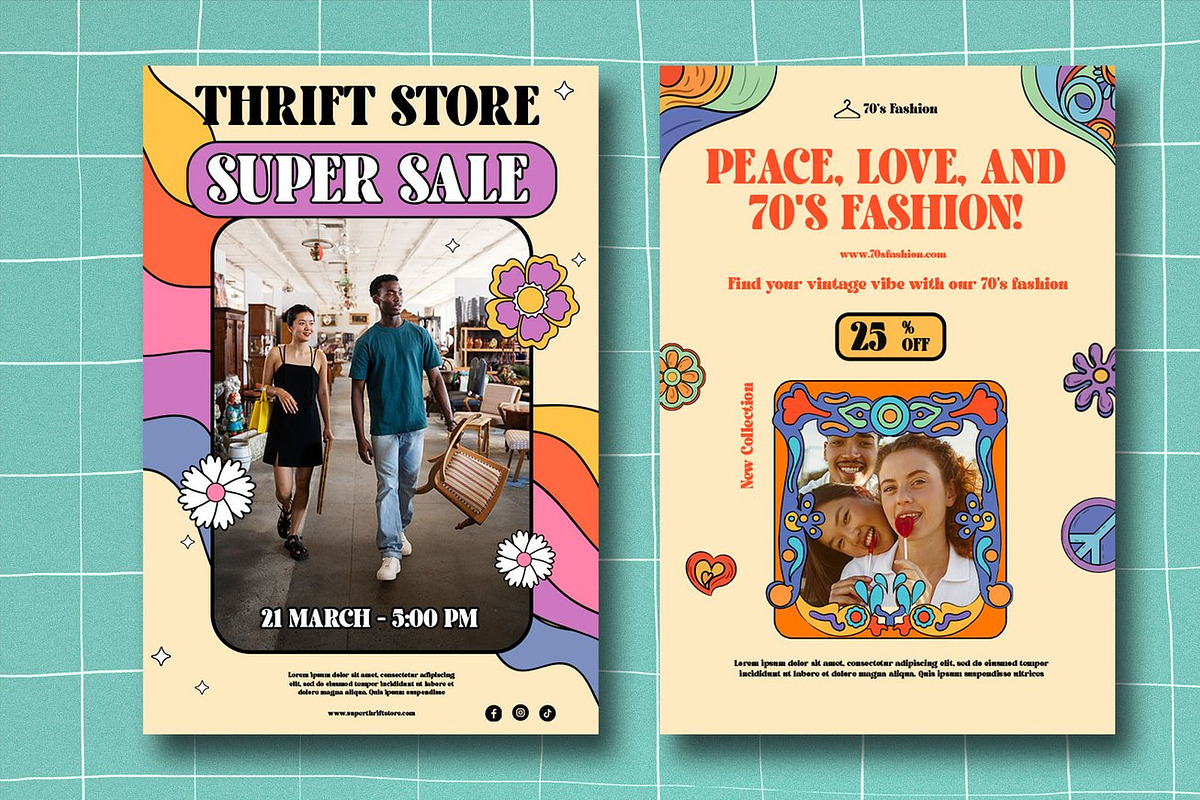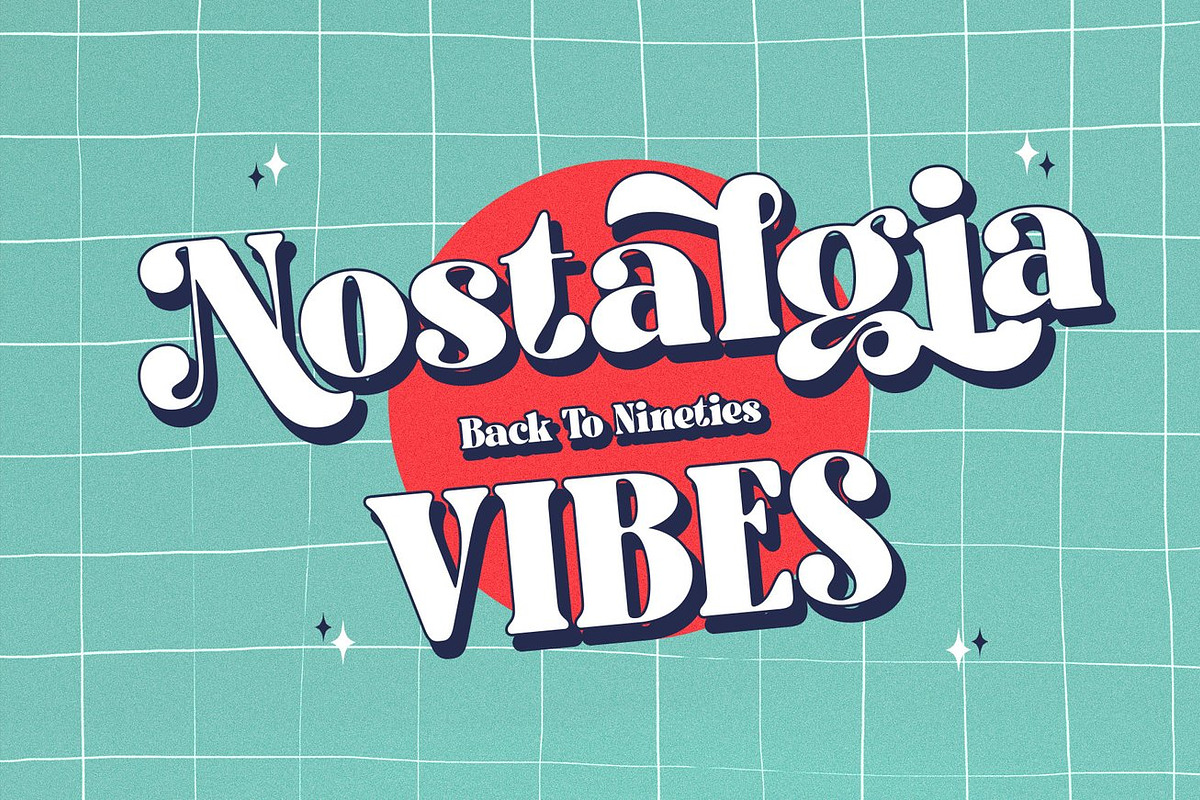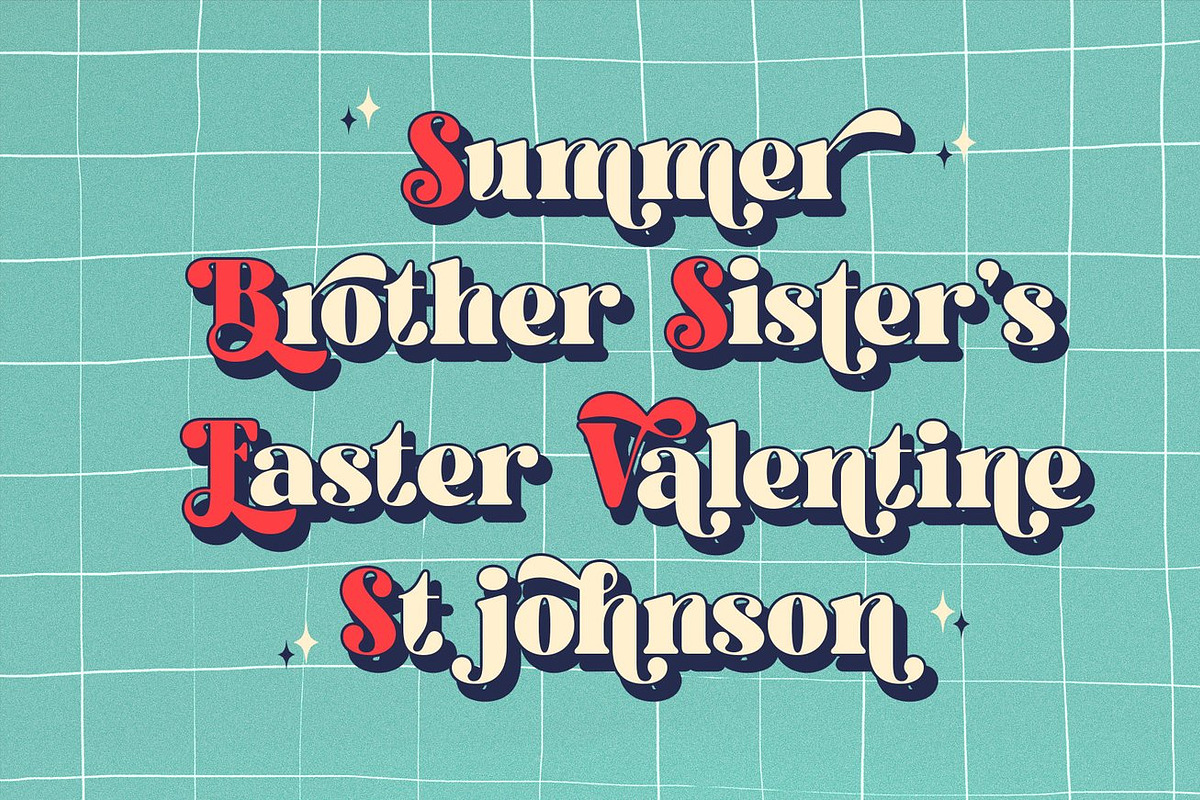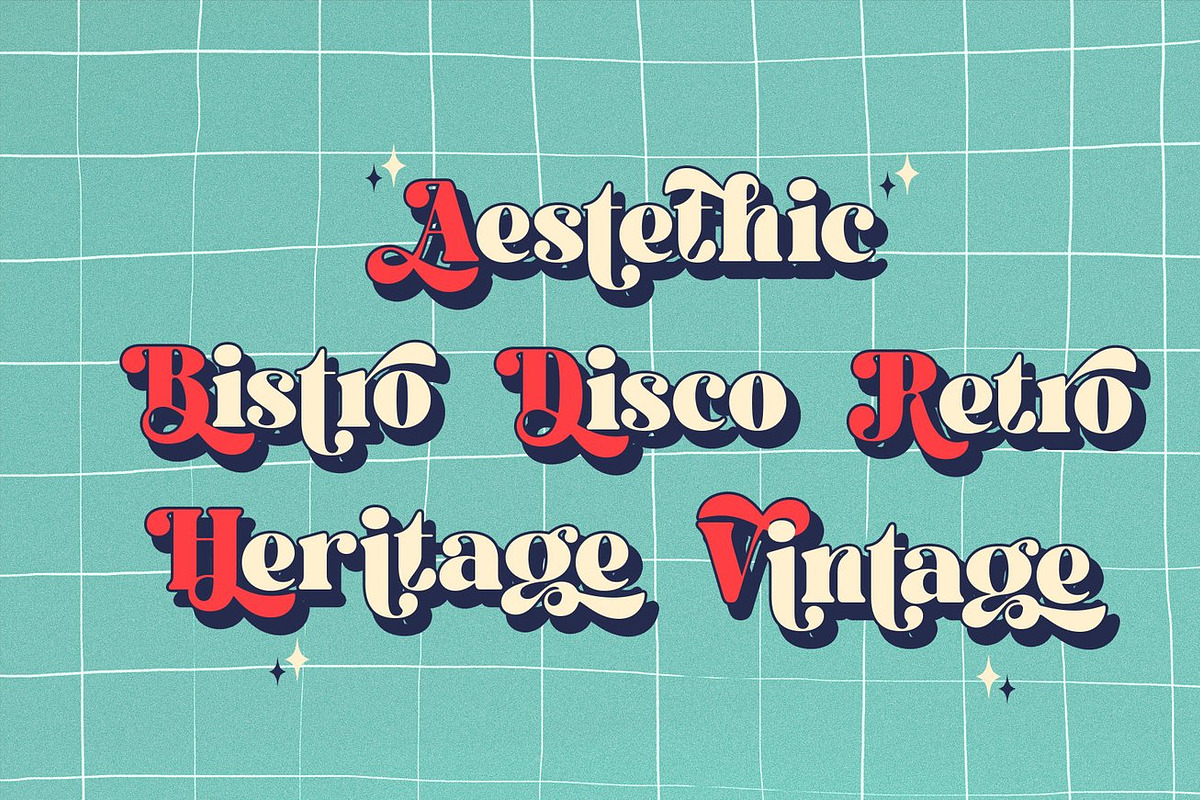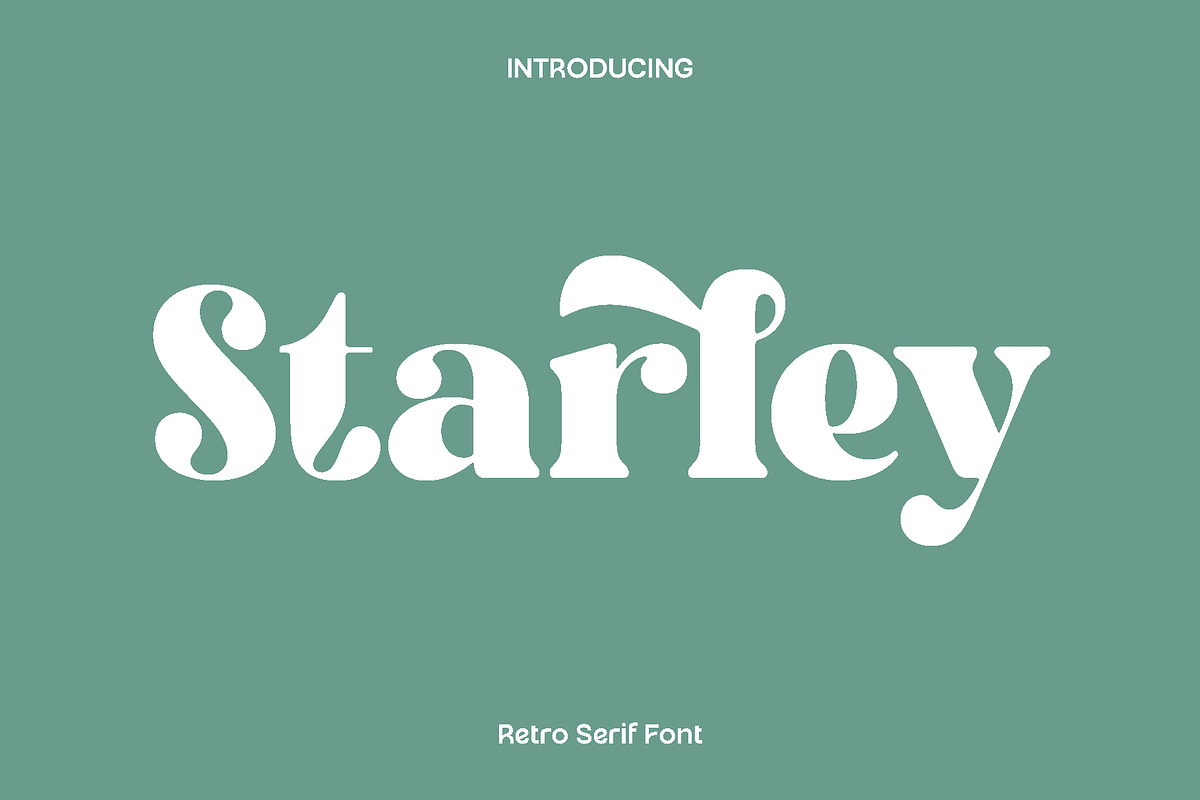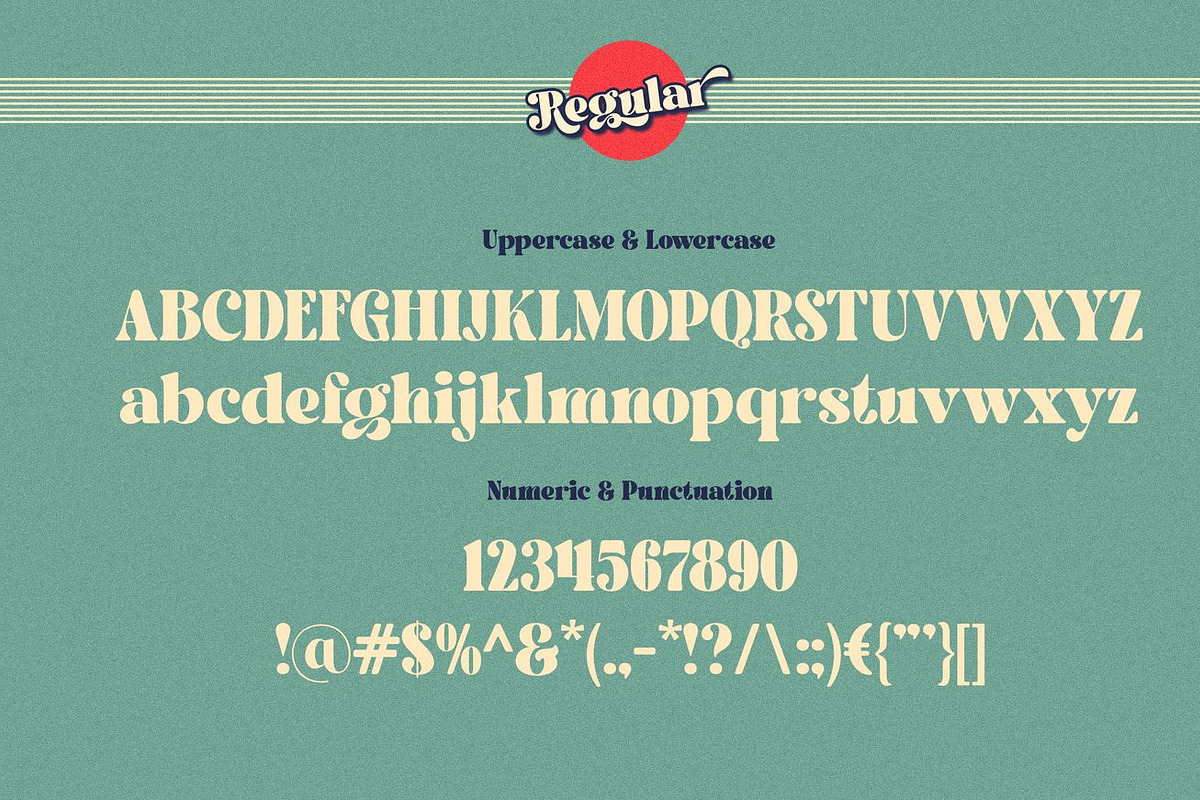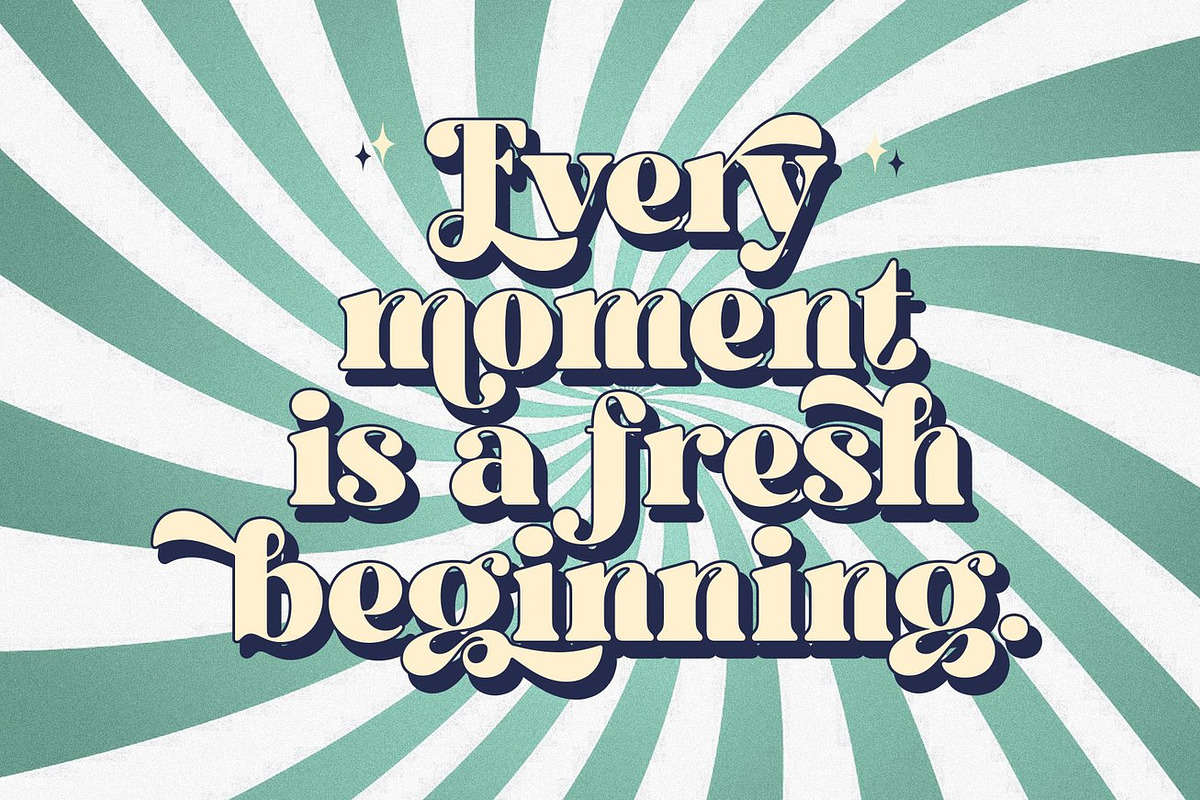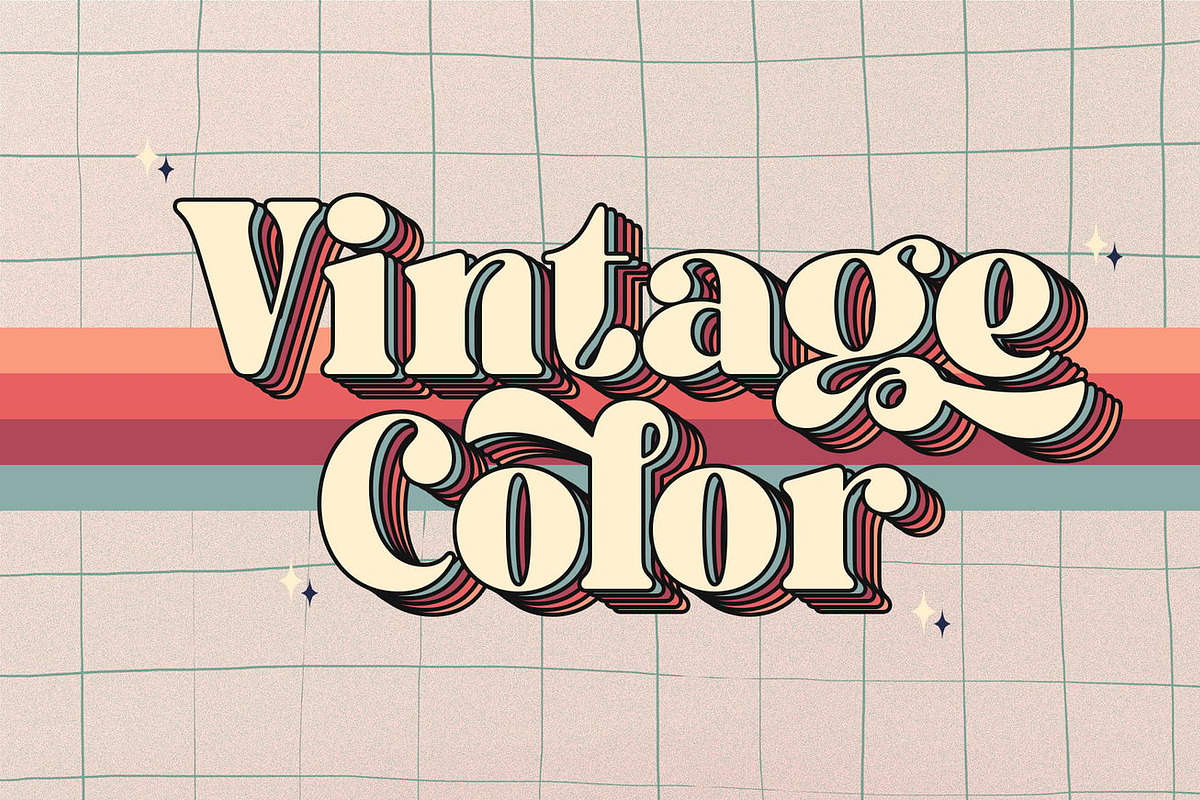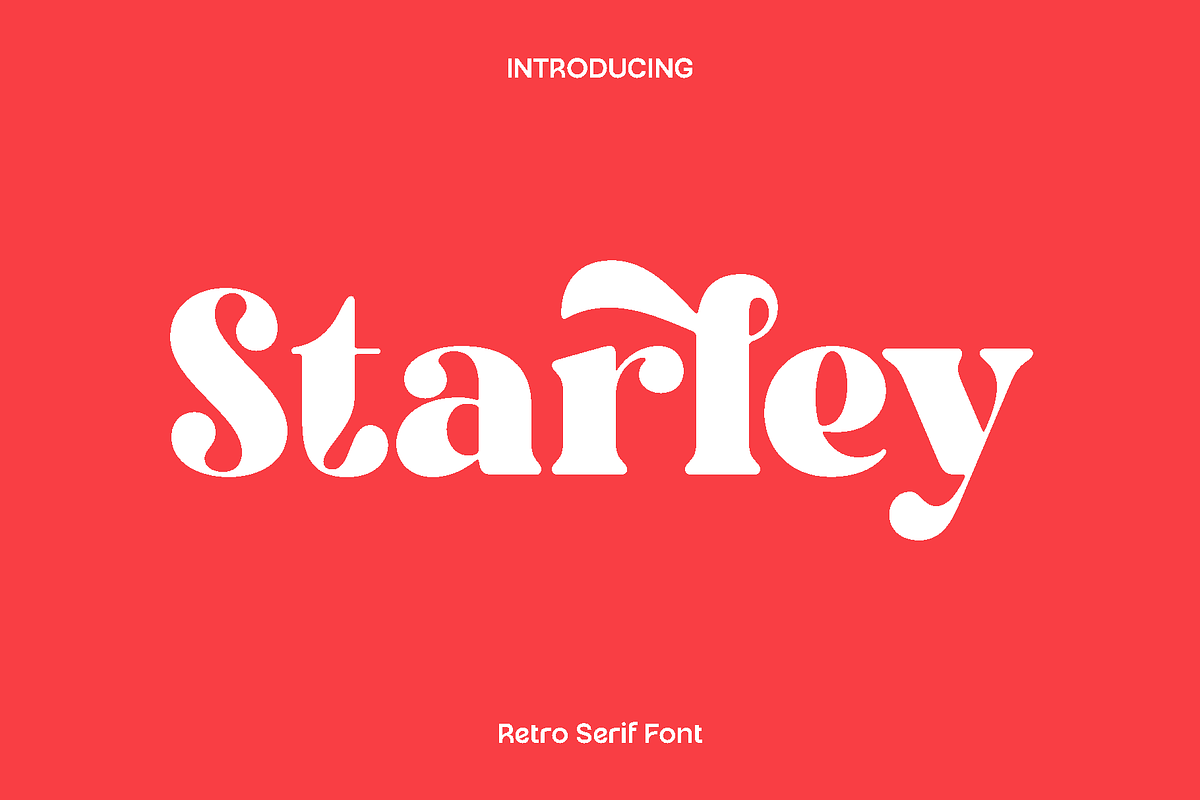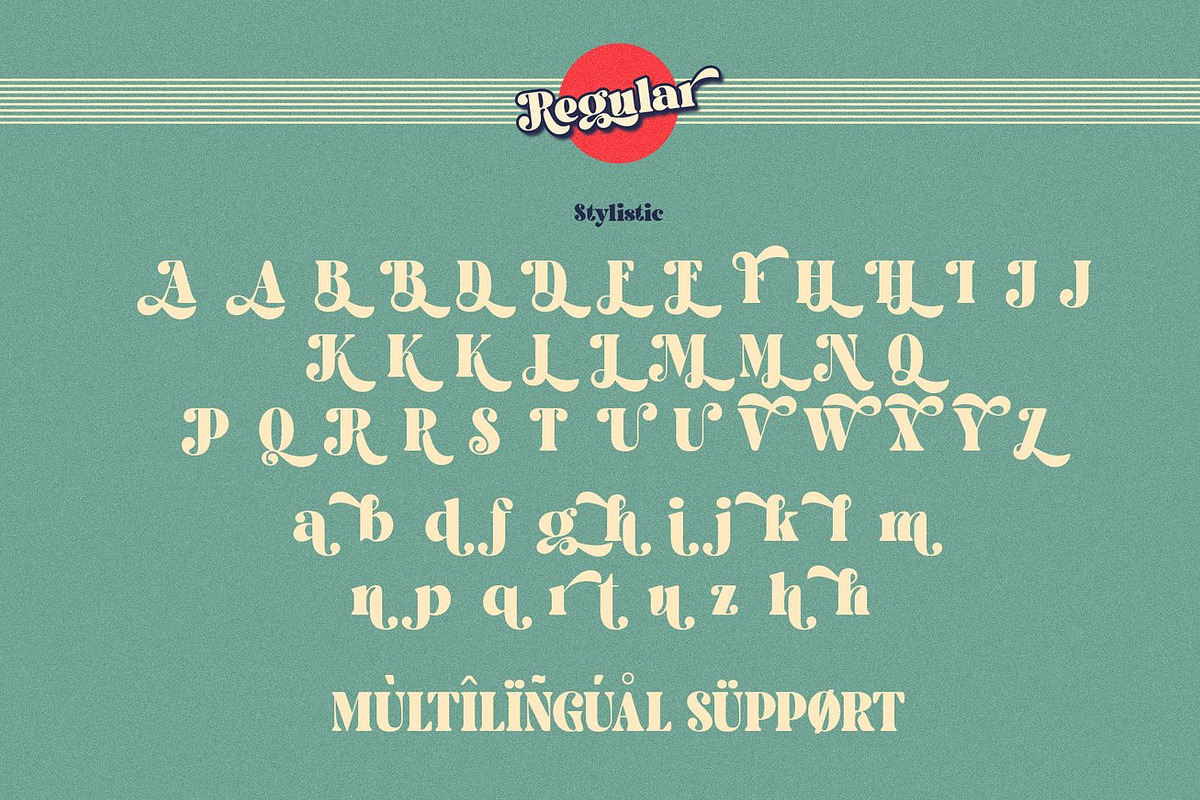
Starley - Retro Serif
Starley is a stylish and versatile font designed to bring sophistication and charm to any creative project. Its carefully crafted letterforms combine elegance with readability, making it perfect for both display and text use. With a balanced structure and subtle personality, Starley adds a polished and professional touch to your designs while remaining approachable and visually appealing.
This font shines in a wide range of applications, from book layouts and magazine spreads to branding, logos, photography projects, inspirational quotes, blog headers, posters, and advertising materials. Its clean and functional design ensures clarity and impact across both print and digital platforms, giving your work a refined and cohesive aesthetic.
Starley also features stylistic alternates and ligatures, providing added flexibility and creative freedom for designers. Its multilingual support allows your projects to reach a global audience, making it an essential tool for designers who want elegance, versatility, and functionality in one typeface.
Starley Font Features:
• Uppercase and lowercase characters
• Numerals and functional symbols
• Stylistic alternates and ligatures
• Multilingual support for extended language coverage
Starley is the perfect choice for designers seeking a font that combines style, versatility, and professional quality to elevate their creative projects.